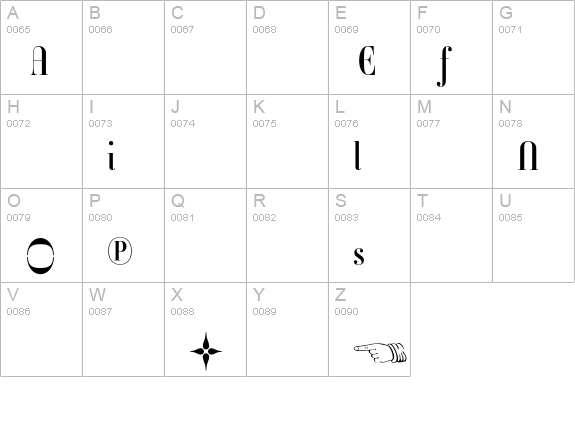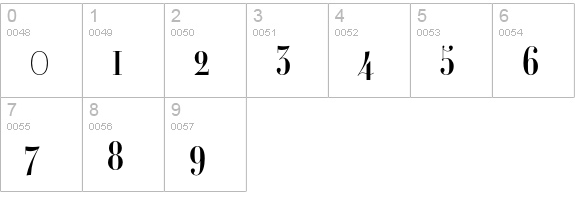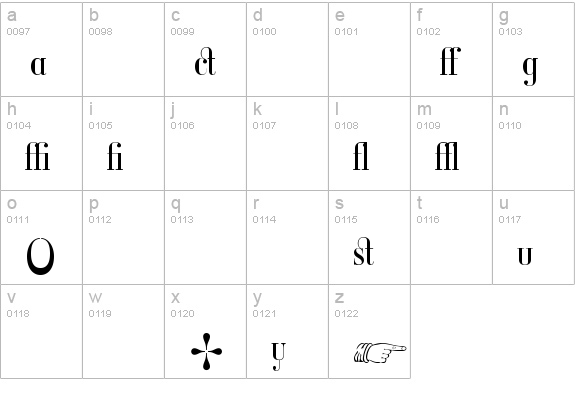
Ambroise Firmin Alternates Regular is the standard, neutral variant in the Ambroise typeface family \xE2\x80\x94 well suited to general body text, paragraphs, and standard typographic work.
Ambroise Firmin Alternates Regular font is a sophisticated and elegant typeface that exudes a sense of classic refinement. Its flowing curves and graceful lines make it an ideal choice for projects that require a touch of timeless beauty. The alternates in this font add a unique flair, allowing for versatility in design applications. Best of all, Ambroise Firmin Alternates Regular font is available for free download at FontsMarket.com. Whether you're working on a branding project, wedding invitations, or any other creative endeavor, this font is sure to elevate your work with its charm and style. Give your designs a touch of luxury and sophistication with Ambroise Firmin Alternates Regular font today!